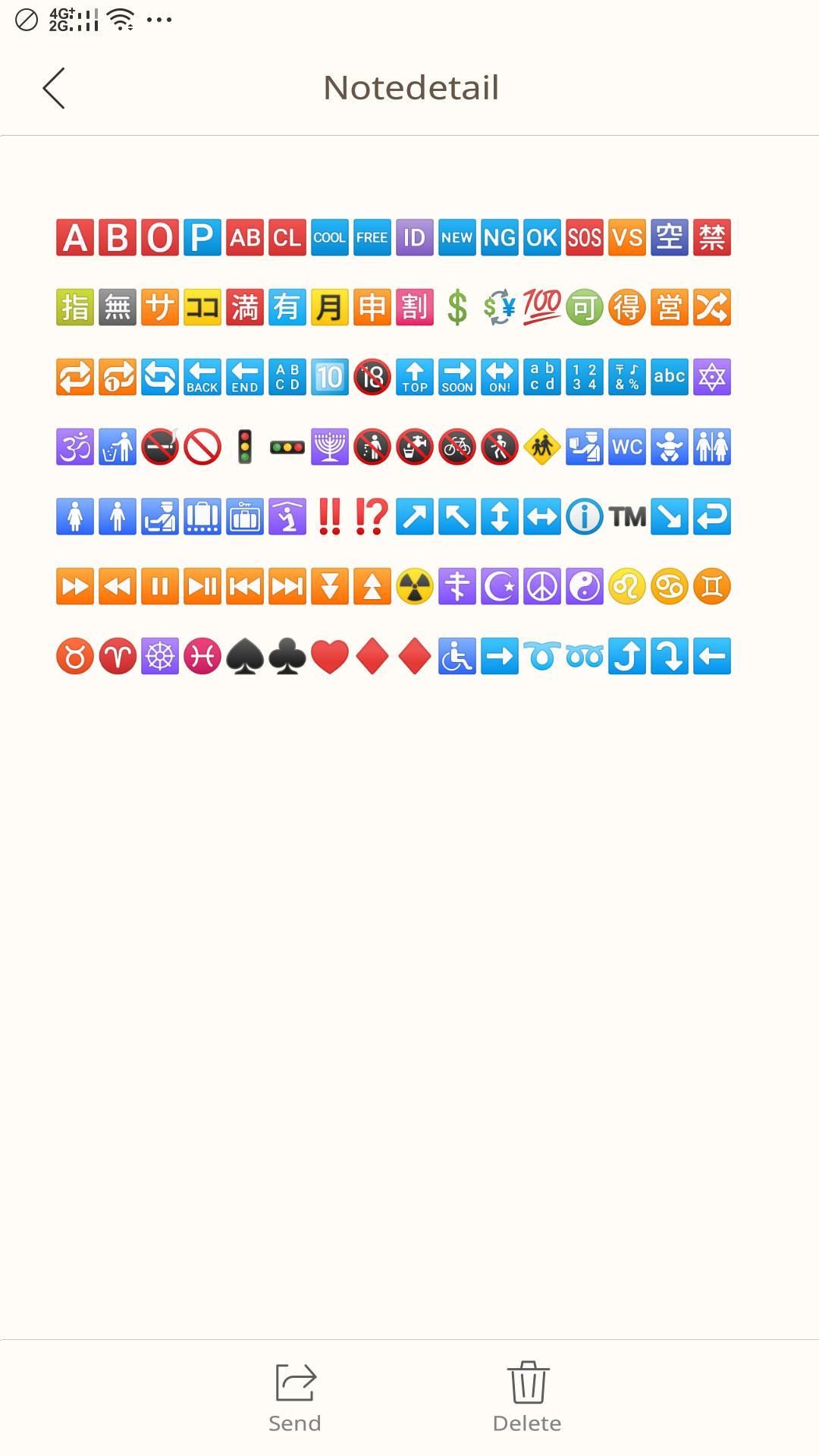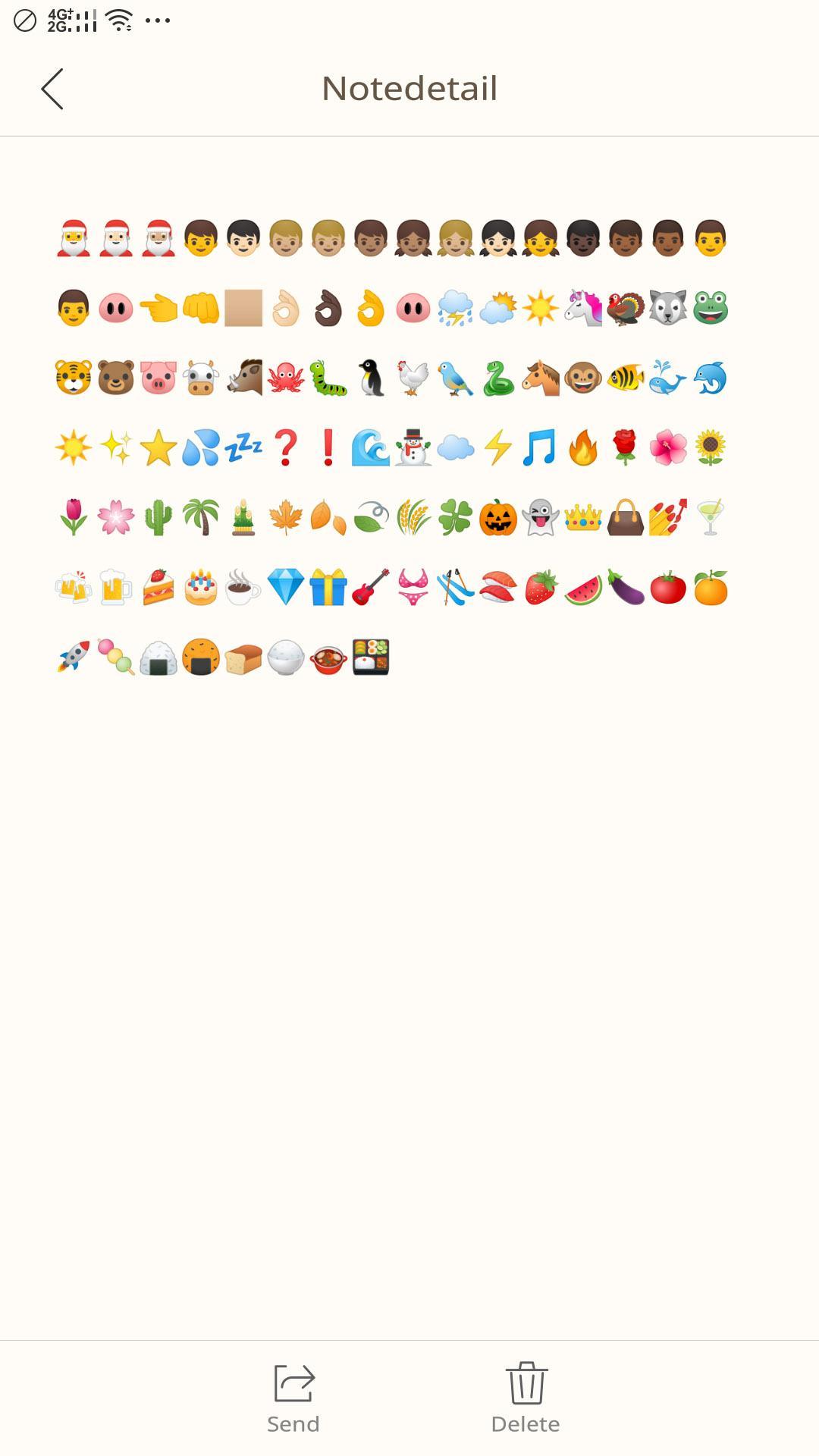
Cute Android new emoji font. Suitable for OPPO Brand device and more.
This application is a free package of brand new Android O emoji font, for you to change the font appearance of your Android cellphone or tablet.
New Android O Emoji Font for OPPO